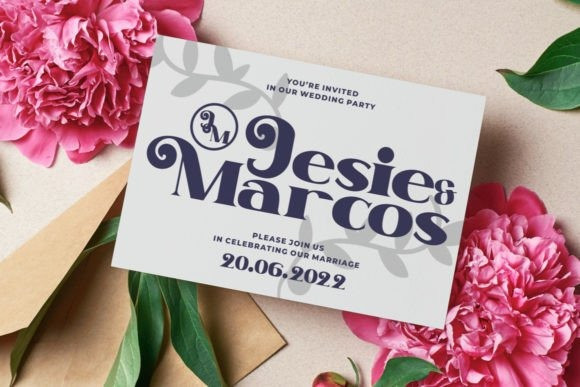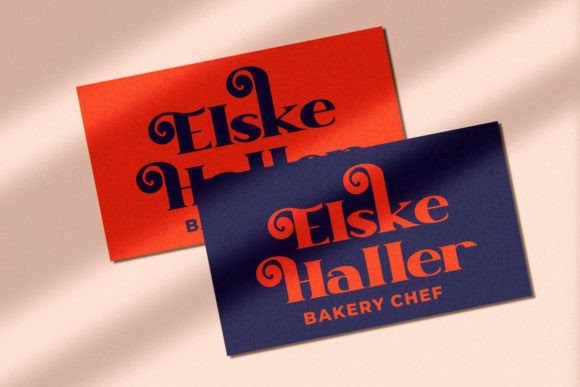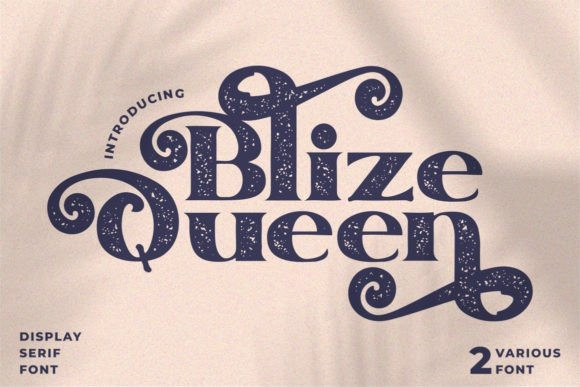
Blize Queen Font
Blize Queen Serif Font is a stylish, bold, and gorgeous display font. Masterfully designed to become a true favorite, this font has the potential to bring each of your creative ideas to the highest level! Blize Queen is PUA encoded which means you can access all the glyphs and ligatures with ease!